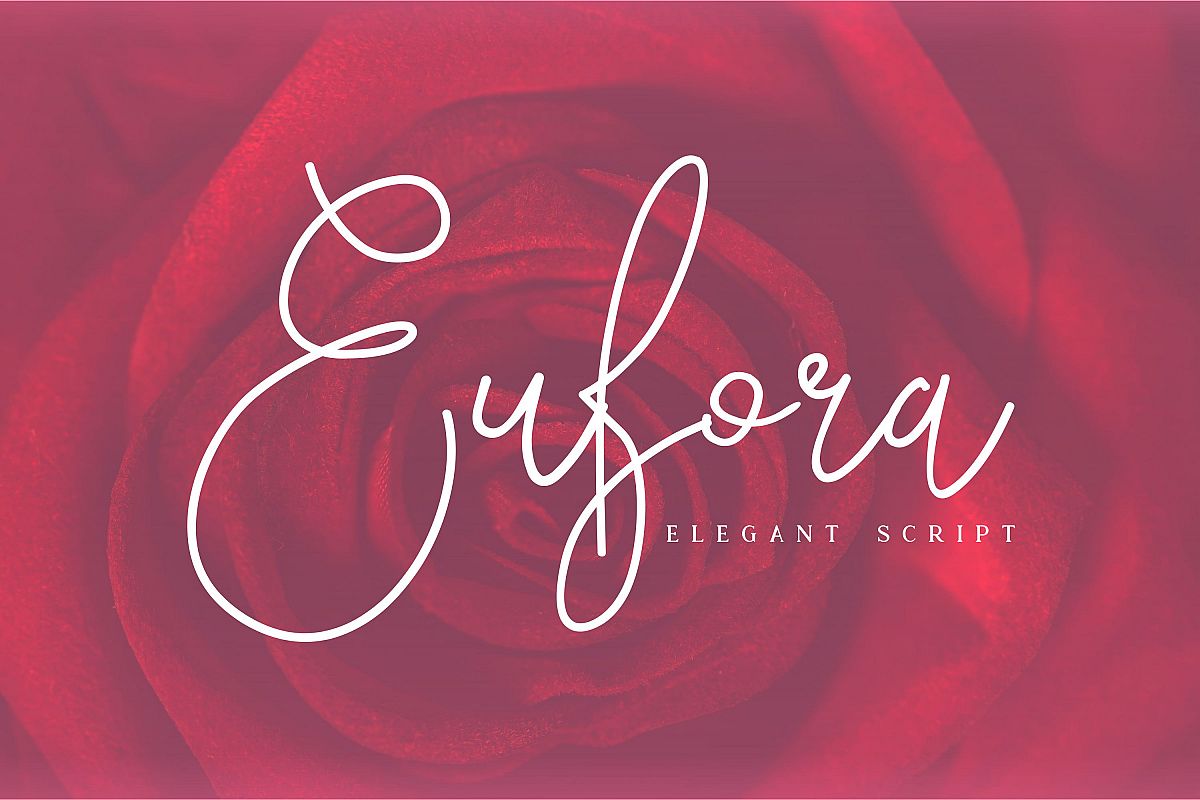
Eufora Elegant Script
Eufora is a modern handwritten font with a modern touch and elegant. It has a feminine touch but can still look masculine when used.
It’s great for invitations, business cards, portfolios, photography signature, logos, and more!